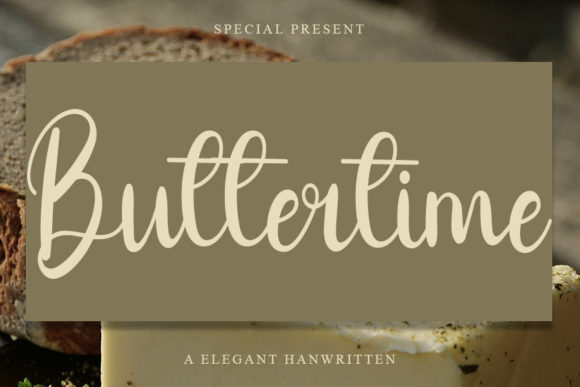
Introducing Buttertime Font: The Epitome of Elegance and Sophistication
In the world of typography, few fonts manage to convey the essence of luxury and refinement as effortlessly as Buttertime. This chic, elegant script font has been turning heads with its sophisticated charm, making it the perfect addition to any design project that demands a touch of class. Whether you’re a seasoned designer or a crafty DIY enthusiast, Buttertime is sure to captivate your audience with its stylish alternates and ligatures.
The Design Philosophy Behind Buttertime
Buttertime’s design is rooted in the principles of classic script typography, yet it boasts a modern flair that sets it apart from more traditional fonts. Each letter is meticulously crafted to exude a sense of fluidity and movement, while maintaining impeccable legibility. The result is a font that feels both vintage and contemporary, capable of elevating any project with its refined aesthetic.
Key Features of Buttertime Font
- Stylish Alternates: Buttertime comes equipped with a range of stylish alternates that allow designers to add a unique twist to their text. These alternates can be used to create a sense of hierarchy, emphasize certain words, or simply to add visual interest to a design.
- Ligatures: The font includes a set of ligatures that seamlessly connect letters, creating a flowing, handwritten feel. These ligatures are perfect for crafting elegant headings, titles, or quotes that demand attention.
- Elegant Swashes: For added flair, Buttertime features elegant swashes that can be used to adorn initials or create beautiful connections between words. These swashes add an extra layer of sophistication to any design.
- Legibility: Despite its ornate nature, Buttertime remains highly legible, making it suitable for both display and body text. This versatility ensures that the font can be used across a wide range of applications.
Use Cases for Buttertime Font
Buttertime’s versatility makes it an excellent choice for various design projects. Here are some of the most popular use cases:
- Branding and Logos: The font’s elegant appearance makes it perfect for creating luxury brand identities, logos, and business cards that require a sophisticated touch.
- Wedding and Event Design: Buttertime is a popular choice for wedding invitations, save-the-dates, and event branding, thanks to its romantic and refined aesthetic.
- Packaging and Product Design: The font’s stylish alternates and ligatures make it an excellent choice for product packaging, labels, and advertisements that need to stand out.
- Digital Media: Buttertime can also be used in digital media, such as social media graphics, blog headers, and website titles, to add a touch of elegance and sophistication.
Tips for Using Buttertime Font Effectively
To get the most out of Buttertime, consider the following tips:
- Pair with Neutral Fonts: Combine Buttertime with neutral, sans-serif fonts to create a striking contrast and emphasize the font’s elegant features.
- Experiment with Ligatures and Alternates: Don’t be afraid to experiment with the font’s ligatures and alternates to create a unique look that suits your project.
- Use for Headings and Titles: Buttertime is perfect for headings and titles, where its elegant appearance can make a lasting impression.
Buttertime font is a masterclass in elegance and sophistication. Its stylish alternates, ligatures, and elegant swashes make it the perfect choice for designers and crafters looking to add a touch of luxury to their projects. With its versatility and legibility, Buttertime is sure to become a staple in any designer’s toolkit. So why wait? Discover the beauty of Buttertime and elevate your designs to new heights of refinement and style.